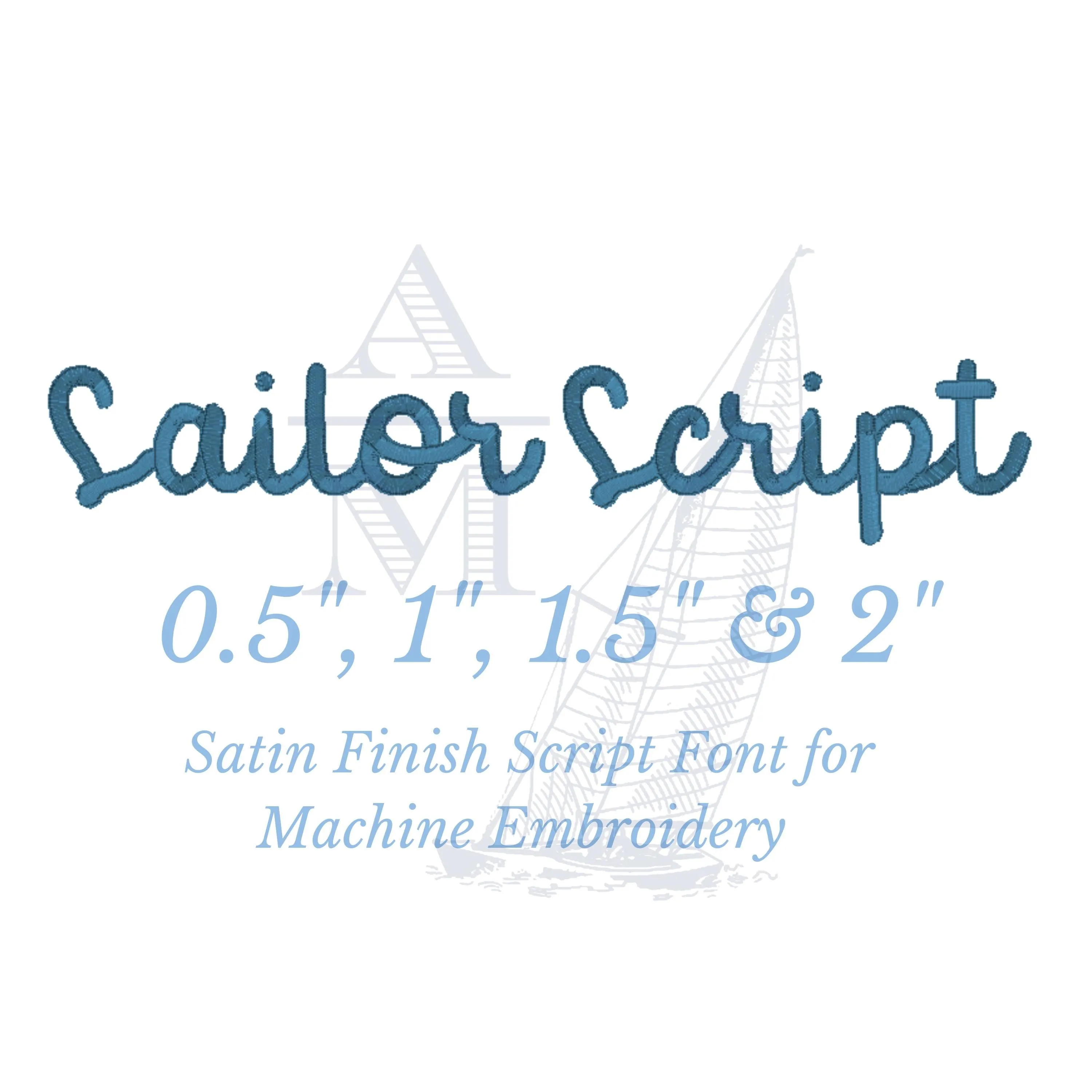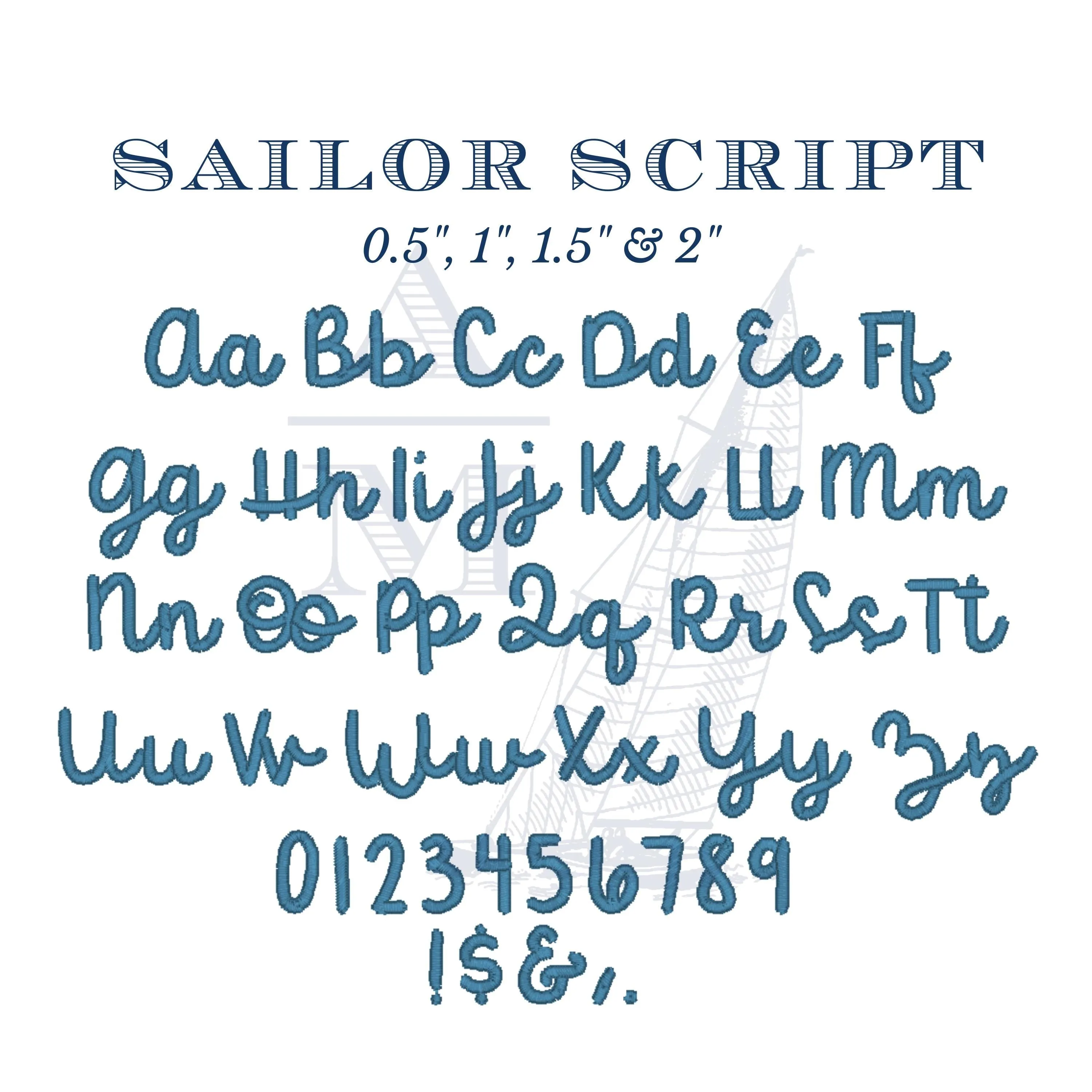
Script Satin Font for Machine Embroidery, Sailor Script by Annapolis Monograms, BX Included, Digital File, 0.5, 1, 1.5 & 2 inch
Introducing the Sailor Script font! This versatile embroidery font is great for any project and comes in several different sizes to suit your needs. This listing includes sizes 0.5, 1, 1.5 & 2 inch. Perfect to use on towels, guest linens, monogrammed backpacks, sweatshirts, apparel and more!